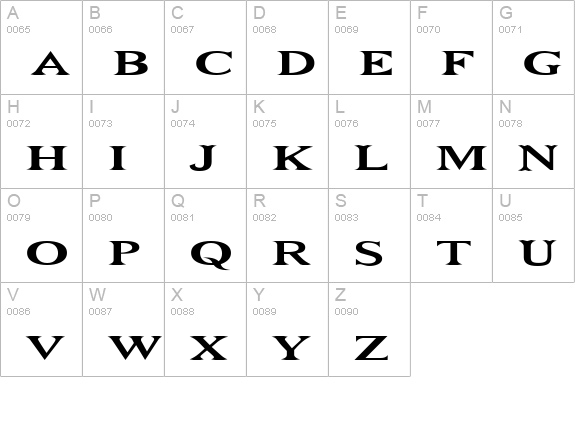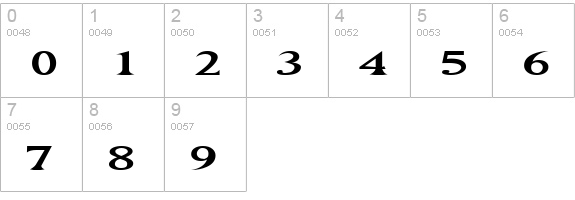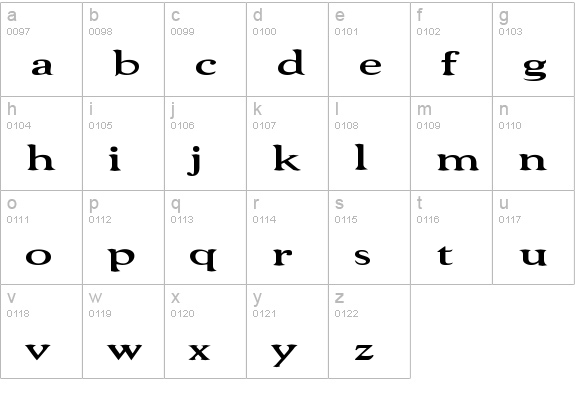
Niew CroMagnon Wide Font Details
Niew CroMagnon Wide is a distinctive, extended-width variant in the Niew typeface family \xE2\x80\x94 well suited to design and typography projects.
Niew CroMagnon Wide font is a versatile and eye-catching typeface that exudes modern sophistication and elegance. With its bold and unique design, this font is perfect for a wide range of design projects, from branding to editorial design. The wide letterforms of Niew CroMagnon Wide make a strong visual impact and create a sense of boldness and authority. The best part about Niew CroMagnon Wide font is that it is available for free download at FontsMarket.com. Whether you are a graphic designer, a web developer, or a creative enthusiast looking to enhance your projects with a distinctive font, Niew CroMagnon Wide is an excellent choice. Download it today and add a touch of style and flair to your designs with this stunning typeface.